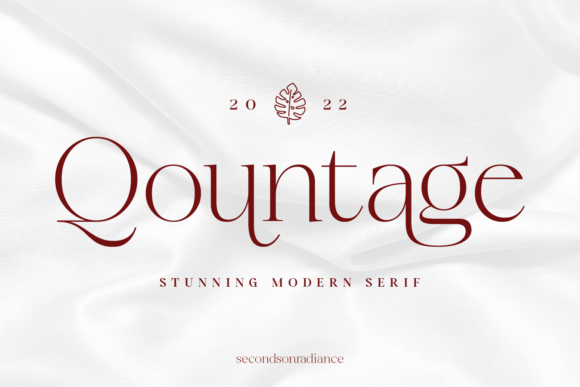
**Qountage Font: A Serif Symphony of Style and Grace**
Prepare to be enthralled by Qountage Font, the ultimate serif font family that weaves nostalgia and vintage charm into a captivating typographic masterpiece. Qountage, a creation of the esteemed Second Son Radiance, is not merely a font; it's an artistic odyssey, an invitation to embark on a journey through time, where elegance and retro vibes harmoniously coexist.
Step into a realm where the written word dances with timeless beauty, where every letter exudes character and personality. Qountage's graceful curves and intricate details evoke a sense of nostalgia, reminiscent of classic novels and vintage posters. It's a font that whispers tales of bygone eras, yet possesses a timeless allure that resonates with modern sensibilities.
With Qountage, your designs will acquire an instant touch of sophistication and charm. Picture wedding invitations adorned with its elegant flourishes, business cards that radiate professionalism, or posters that transport viewers to a world of yesteryear. Qountage is a versatile font, equally at home in branding projects, logos, and social media posts. Its versatility knows no bounds.
**Escape the Ordinary, Embrace the Vintage Chic**
Qountage is more than just a font; it's a statement, a declaration of your refined taste and appreciation for timeless aesthetics. Its vintage charm will captivate your audience, evoking a sense of nostalgia and wonder. Whether you're a designer seeking to elevate your work, a business owner aiming to create a lasting impression, or simply a lover of typography, Qountage is your perfect companion.
Unleash your creativity and let your designs flourish with the timeless elegance of Qountage. Immerse yourself in a world of vintage beauty, where nostalgia meets modernity, and where every word carries the weight of history and the promise of a captivating story.
**Qountage: A Font That Inspires, Enchants, and Endures**
Qountage is not just a font; it's an experience, a journey into the realm of timeless beauty. Its playful nostalgia and incredible vintage aesthetic will transform your designs into works of art, capturing the attention of your audience and leaving an indelible mark on their hearts.
With Qountage, you'll discover a world of creative possibilities, where imagination knows no limits. Its versatility and timeless appeal make it the perfect choice for an array of projects. From branding and logos to social media posts and invitations, Qountage adds a touch of sophistication and charm to every endeavor.
So, embrace the allure of Qountage, and let your creativity soar. Its vintage flair and timeless elegance will elevate your designs, leaving a lasting impression on your audience. Qountage is more than just a font; it's a gateway to a world of enchantment and inspiration.